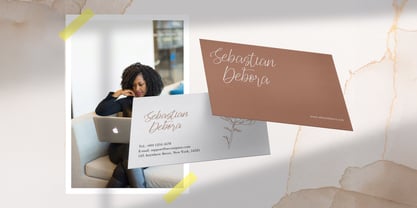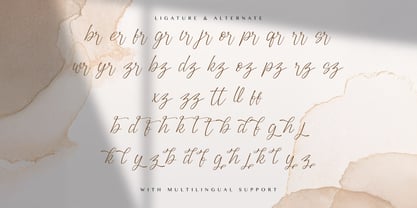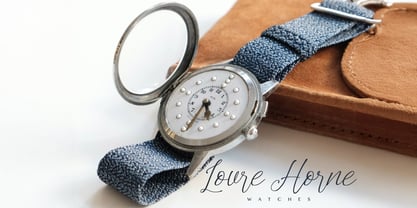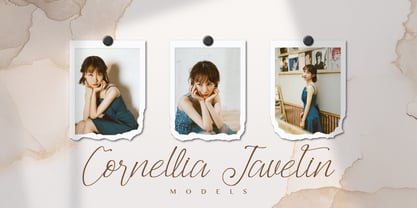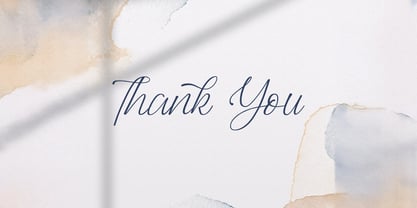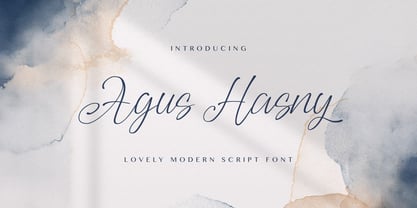
The Agus Hasny Font Family was designed by Virgiawan Listanto and published by Stringlabs Creative Studio. Agus Hasny contains 1 styles.
Agus Hasny is a graceful Love Script Font designed to add a touch of romance and elegance to your creative projects. With flowing curves, delicate strokes, and a heartwarming handwritten style, Agus Hasny is perfect for moments that matter. Whether you're designing wedding invitations, love notes, or feminine branding, this font brings emotional warmth and sophistication to every word.
Designers: Virgiawan Listanto
Publisher: Stringlabs Creative Studio
Foundry: Stringlabs Creative Studio
Design Owner: Stringlabs Creative Studio
Agus Hasny